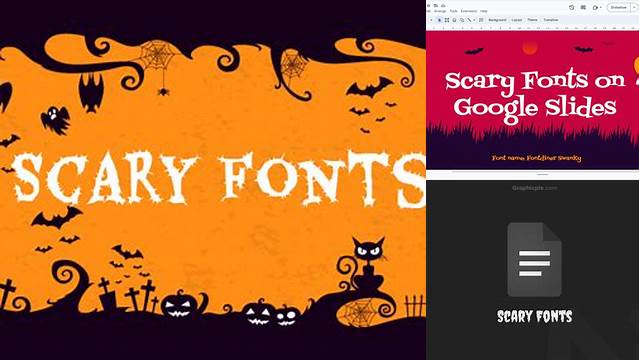
Scary Fonts For Google Slides: Spooky Season Designs
Hey guys! Getting ready to spookify your Google Slides? You've come to the right place! Finding the perfect scary font can really make your presentation or project stand out, especially for Halloween, horror themes, or anything that needs a touch of the macabre. But with so many fonts available, it can be overwhelming to choose. So, let’s dive into some of the creepiest, crawliest, and downright terrifying fonts you can use right within Google Slides. We’ll explore fonts that scream (pun intended!) “horror,” discuss where to find them, and give you tips on how to use them effectively. So buckle up, because we’re about to enter the fontastic world of fear!
1. Fonts That Scream Horror on Google Slides
When you think of a scary font, what comes to mind? Maybe it’s something jagged, dripping, or reminiscent of old horror movie posters. The good news is that Google Slides has a ton of options that fit the bill. We're talking fonts that instantly evoke feelings of dread, suspense, and maybe even a little bit of goosebumps. Choosing the right font is crucial because it sets the tone for your entire project. It’s like the soundtrack to a horror movie – it can make or break the experience. So, let's dig into some specific fonts that are perfect for your next spooky presentation. Think about the overall message you want to convey. Are you going for a classic horror vibe, a modern thriller feel, or something a bit more playful and creepy? The answer will guide you in selecting the ideal scary font.
2. Classic Horror Movie Inspired Fonts
For those who love the classics – think Dracula, Frankenstein, and The Exorcist – using fonts inspired by vintage horror movie posters can be incredibly effective. These fonts often have a hand-drawn, slightly distressed look, which adds to their eerie charm. Imagine the opening credits of a classic horror film; the fonts used often set the mood immediately. Some examples include fonts that resemble dripping blood, jagged edges like shattered glass, or even the elegant yet sinister script fonts used in older vampire movies. Using these types of fonts can instantly transport your audience to a world of suspense and terror. The key is to find a font that feels authentic and true to the era you're trying to evoke. Consider pairing a classic scary font with vintage imagery or sound effects for maximum impact. It's all about creating a cohesive and immersive experience for your audience.
3. Modern Thriller Style Fonts
If you're aiming for a more contemporary horror or thriller feel, you'll want to explore fonts that have a sleek, sharp, and sometimes even futuristic aesthetic. Think of movies like Saw or The Ring; the fonts used in these films often have a very different vibe than classic horror. They might be sans-serif fonts with a subtle twist, like a slightly off-kilter angle or a deliberately unsettling kerning (the spacing between letters). These fonts are often more about creating a sense of unease and tension than outright scares. They can be incredibly effective for psychological thrillers or anything that relies on suspense and mystery. A modern scary font can also work well for presentations on true crime or unexplained phenomena, adding a layer of seriousness and intrigue.
4. Fonts with a Dripping Blood Effect
Nothing screams (again, pun intended!) “horror” quite like a font that looks like it's dripping blood. These fonts are perfect for adding a visceral and shocking element to your designs. They're especially effective for Halloween invitations, horror movie posters, or anything that needs a dramatic and gruesome touch. When choosing a font with a dripping blood effect, consider the level of detail and readability. You want something that's clearly recognizable as blood but also legible enough to convey your message. Overdoing it can make your text look messy and difficult to read. Use these fonts sparingly and strategically, and they can be incredibly impactful. Imagine using a scary font with a dripping blood effect for a haunted house flyer – it's sure to grab attention!
5. Jagged and Distressed Fonts for a Creepy Look
Jagged and distressed fonts are another excellent option for creating a creepy and unsettling vibe. These fonts often have a rough, uneven appearance, as if they've been scratched, torn, or aged. They can evoke feelings of decay, neglect, and general unease. Think of old, abandoned buildings with peeling paint and crumbling walls – that's the kind of feeling these fonts can convey. Jagged fonts work well for anything that needs a raw and edgy feel, while distressed fonts can add a sense of history and decay. Using a jagged or distressed scary font can be a great way to add texture and visual interest to your Google Slides.
6. Spooky Script Fonts for an Eerie Touch
Script fonts might not be the first thing that comes to mind when you think of horror, but they can actually be incredibly effective for creating an eerie and unsettling touch. Think of the elegant, yet sinister, scripts used in classic vampire movies or the creepy, flowing handwriting often associated with ghosts and haunted houses. The key is to choose a script font that has a slightly off-kilter or unsettling feel. A script font with sharp angles, unusual loops, or a slightly shaky appearance can be surprisingly spooky. A well-chosen scary font in a script style can add a touch of elegance and sophistication to your horror-themed designs, while still maintaining a creepy vibe.
7. Finding Scary Fonts Directly in Google Slides
Okay, so where do you actually find these awesome scary fonts within Google Slides? It's easier than you might think! Google Slides has a built-in font library that includes a variety of options, and you can also add more fonts from Google Fonts. To access the font menu, simply click on the font dropdown in the toolbar. From there, you can scroll through the list of available fonts or use the search bar to look for specific styles. To add more fonts, click on “More fonts” at the bottom of the dropdown menu. This will open a window where you can browse and select from hundreds of fonts in the Google Fonts library. You can filter by categories like serif, sans-serif, display, and handwriting, or you can search for specific keywords like “horror” or “creepy.”
8. Exploring Google Fonts for Horror Options
Google Fonts is a treasure trove of free, high-quality fonts, and it's a fantastic resource for finding the perfect scary font for your Google Slides. The best part? It's directly integrated with Google Slides, so you can easily add any font you find to your presentation. When browsing Google Fonts, try using keywords like “horror,” “creepy,” “gothic,” “distressed,” and “jagged” to narrow down your search. You can also explore different categories like “display” and “handwriting” to find fonts that fit your specific needs. Once you've found a font you like, simply click on it and then click the “Add to Collection” button. The next time you open the font menu in Google Slides, your newly added font will be there, ready to use.
9. Websites Offering Free Scary Fonts
Beyond Google Fonts, there are tons of websites out there that offer free fonts, including some fantastic scary fonts. However, it's important to be careful when downloading fonts from the internet. Always make sure you're downloading from a reputable source and that you understand the licensing terms. Some websites offer fonts for personal use only, while others allow commercial use. Some popular websites for free fonts include DaFont, Font Squirrel, and 1001 Fonts. These sites often have extensive collections of horror-themed fonts, from dripping blood styles to jagged, distressed designs. Just be sure to read the license agreement before using any font, and always give credit to the font designer when required.
10. DaFont: A Goldmine of Creepy Typefaces
DaFont is a particularly popular website for finding free fonts, and it's an absolute goldmine for creepy typefaces. The site has a dedicated “Horror” category, which makes it easy to browse through hundreds of scary fonts. You'll find everything from fonts that look like they've been carved into stone to dripping blood styles to elegant, yet unsettling, scripts. DaFont also allows you to preview how your text will look in a specific font before you download it, which is incredibly helpful. Keep in mind that the fonts on DaFont are created by various designers, so the licensing terms may vary. Be sure to check the license agreement for each font before using it in your projects. Many fonts are free for personal use, but you may need to purchase a license for commercial use.
11. Font Squirrel: High-Quality Free Fonts for Spooky Designs
Font Squirrel is another excellent resource for finding high-quality free fonts, including a great selection of options perfect for spooky designs. What sets Font Squirrel apart is its focus on fonts that are licensed for commercial use, making it a great choice for professional projects. The site also offers a handy “Font Identifier” tool, which can help you identify a font you've seen elsewhere. This can be incredibly useful if you're trying to match a scary font used in a movie poster or other design. Font Squirrel's user-friendly interface and commitment to commercial-use fonts make it a top choice for designers and anyone looking for reliable free fonts.
12. 1001 Fonts: A Vast Collection of Horror-Themed Fonts
As the name suggests, 1001 Fonts boasts a massive collection of fonts, including a vast selection of horror-themed options. The site's search and filtering options make it easy to find the perfect scary font for your needs. You can filter by categories like “horror,” “gothic,” “distressed,” and more. 1001 Fonts also offers a convenient preview tool that allows you to see how your text will look in different fonts. Like other free font websites, it's crucial to check the license agreement for each font before using it. While many fonts are free for personal use, commercial use may require a license. With its extensive library and user-friendly features, 1001 Fonts is a valuable resource for anyone seeking creepy typefaces.
13. Using Different Font Styles to Create Tension
Choosing the right scary font is just the first step. How you use that font can also significantly impact the overall effect. One effective technique is to use different font styles to create tension and contrast. For example, you might pair a bold, jagged font for headings with a more subtle, distressed font for body text. This can help to draw the reader's eye to important information while still maintaining a creepy vibe. You can also use different font sizes and weights to create visual hierarchy and emphasis. A large, bold font can be used for shocking statements or reveals, while a smaller, lighter font can be used for more subtle details. Experimenting with different font styles is a great way to add depth and complexity to your designs.
14. Combining Scary Fonts for Maximum Impact
Don't be afraid to combine different scary fonts to create a more dynamic and visually interesting design. However, it's important to do this thoughtfully. Using too many fonts can make your design look cluttered and confusing. A good rule of thumb is to stick to two or three fonts at most. When combining fonts, try to choose fonts that complement each other. For example, you might pair a bold, display font with a more readable sans-serif font for body text. You can also use different weights and styles of the same font family to create variation without overwhelming the design. Experiment with different combinations to see what works best for your specific project.
15. Font Colors That Enhance the Spooky Effect
Color is a powerful tool for enhancing the spooky effect of your fonts. Certain colors are naturally associated with horror and suspense, such as red, black, and dark shades of purple and green. Using these colors for your scary font can instantly amplify its impact. Red is often associated with blood and danger, making it a great choice for shocking headlines or dramatic statements. Black conveys a sense of darkness, mystery, and fear, and it works well for creating a sense of unease. Dark purples and greens can evoke feelings of decay, sickness, and the supernatural. Consider the overall mood you're trying to create and choose colors that support that mood. You can also use contrasting colors to create visual interest and emphasis.
16. Adding Shadows and Outlines for a 3D Effect
Adding shadows and outlines to your scary font can create a 3D effect that makes your text pop off the page. This can be particularly effective for headings and titles. In Google Slides, you can add shadows and outlines to your text by selecting the text box and then clicking on the “Format options” button in the toolbar. From there, you can adjust the shadow's color, distance, blur, and angle. You can also add an outline to your text and customize its color, thickness, and style. Experiment with different settings to achieve the desired effect. A subtle shadow can add depth and dimension, while a bold outline can make your text stand out even more. Just be careful not to overdo it, as too much shadowing or outlining can make your text look cluttered and difficult to read.
17. Text Effects to Make Your Fonts Even Scarier
Google Slides offers a variety of text effects that can help you make your scary fonts even more terrifying. These effects include things like reflections, glows, and bevels. Reflections can create a sense of eeriness and otherworldliness, while glows can add a subtle, ethereal touch. Bevels can give your text a three-dimensional appearance, making it look like it's popping off the page. To access these text effects, select your text box and then click on “Format options” in the toolbar. From there, you can explore the different effects and adjust their settings to your liking. Experiment with different combinations to see what works best for your specific font and design. Just remember to use these effects sparingly, as too many effects can make your text look cluttered and distracting.
18. Animation Techniques to Emphasize Horror Fonts
Animation can be a powerful tool for emphasizing your scary fonts and creating a truly chilling presentation. Google Slides offers a variety of animation options that you can use to reveal your text in a dramatic and suspenseful way. For example, you might use a “fade in” animation to slowly reveal a creepy headline, or a “fly in” animation to make your text swoop onto the screen. You can also use animations to highlight specific words or phrases, drawing the viewer's attention to key details. To add animation to your text, select the text box and then click on the “Animate” button in the toolbar. From there, you can choose from a variety of animation options and customize their settings. Experiment with different animations to find the ones that best suit your overall design and message. Just be careful not to overdo it with the animations, as too many animations can be distracting and take away from the impact of your font.
19. Background Images That Complement Scary Fonts
The background image you choose can significantly enhance the overall spooky effect of your scary font. A dark, moody background can create a sense of unease and suspense, while a textured background can add visual interest and depth. Consider using images of haunted houses, graveyards, dark forests, or other creepy scenes to complement your font. You can find free stock photos on websites like Unsplash, Pexels, and Pixabay. When choosing a background image, make sure it doesn't clash with your font or make your text difficult to read. A good rule of thumb is to use a background image that is slightly blurred or dimmed, so that your text stands out more prominently. You can also use a color overlay to darken or tint your background image, creating a more cohesive look.
20. Sound Effects for a Truly Frightening Presentation
Sound effects can add a whole new dimension to your spooky presentation and amplify the impact of your scary font. Imagine the sound of creaking doors, ghostly whispers, or a sudden scream accompanying your creepy text – it's sure to send chills down your audience's spines! Google Slides allows you to easily insert audio files into your presentations. You can find free sound effects on websites like Freesound and Zapsplat. When choosing sound effects, make sure they are appropriate for your audience and your overall message. Avoid sounds that are too loud or jarring, as these can be distracting and unpleasant. Instead, opt for subtle sound effects that enhance the atmosphere and create a sense of suspense. You can also use sound effects to emphasize specific words or phrases, drawing the viewer's attention to key details.
21. Examples of Effective Scary Font Combinations
Choosing the right font combination can make or break your spooky design. Here are a few examples of effective scary font pairings that you can use as inspiration:
- Pairing 1: A bold, jagged display font like “Nosferatu” for headings with a more readable sans-serif font like “Roboto” for body text.
- Pairing 2: A dripping blood font like “Bloodlust” for titles with a distressed script font like “Ghoulish” for subheadings.
- Pairing 3: A classic gothic font like “Blackwood Castle” for headings with a modern, slightly off-kilter font like “Bebas Neue” for body text.
Experiment with different combinations to find what works best for your specific project and message. The key is to choose fonts that complement each other and create a cohesive visual experience.
22. Common Mistakes to Avoid When Using Scary Fonts
While scary fonts can be incredibly effective for creating a spooky atmosphere, it's important to use them thoughtfully and avoid common mistakes. One of the biggest mistakes is overusing scary fonts. Using too many different scary fonts, or using a scary font for large blocks of text, can make your design look cluttered and difficult to read. Another common mistake is choosing a font that is too extreme or illegible. While a dripping blood font might look cool for a title, it's probably not the best choice for body text. It's also important to consider your audience when choosing a scary font. A font that is too graphic or violent might be inappropriate for some viewers. Always err on the side of caution and choose fonts that are both effective and appropriate for your audience.
23. How to Ensure Readability with Horror Fonts
Even the scariest font needs to be readable! You don’t want your message lost in a sea of creepy squiggles. When using a scary font, ensure readability by:
- Choosing a legible size: Don't make the font too small, especially for body text.
- Using sufficient contrast: Make sure your font color stands out against the background.
- Avoiding overly complex fonts for large blocks of text: Save the super-creepy, hard-to-read fonts for titles and headings.
- Kerning and tracking: Adjust the spacing between letters and words if needed to improve readability.
24. The Psychology Behind Scary Fonts and Their Impact
Ever wondered why certain fonts give you the chills? It’s all about psychology! Scary fonts often tap into our primal fears and associations. Jagged fonts can evoke feelings of danger and pain, while dripping fonts might trigger associations with blood and injury. Gothic fonts can conjure images of old castles, graveyards, and the supernatural. By understanding the psychology behind these fonts, you can use them more effectively to create the desired emotional response in your audience. Think about the message you want to convey and choose fonts that support that message on a psychological level.
25. Scary Fonts for Halloween Presentations
Halloween is the perfect time to unleash your inner font fanatic and go all-out with scary fonts. Whether you're creating a presentation for a Halloween party, a haunted house event, or just a fun classroom activity, the right font can make all the difference. Consider using fonts that evoke classic Halloween imagery, such as pumpkins, ghosts, and bats. Dripping blood fonts, jagged fonts, and distressed fonts are also great choices for Halloween-themed designs. Don't be afraid to get creative and experiment with different font combinations and effects to create a truly spooky presentation.
26. Using Scary Fonts in Educational Settings (Appropriately)
You might be thinking, “Scary fonts in school?!” But hear me out! Used appropriately, they can be a fun way to engage students. Think about a history lesson on medieval times using a gothic font, or a spooky story writing prompt with a dripping blood font. The key is context. Make sure the font fits the subject matter and isn’t too intense for younger students. Always prioritize readability and use scary fonts sparingly. They should enhance the learning experience, not distract from it.
27. Scary Fonts for Gaming and Streaming Graphics
Gamers and streamers, listen up! A killer scary font can seriously level up your graphics. Think about your channel’s theme – horror games, spooky streams, or just a general edgy vibe. Choose fonts that match that aesthetic. Jagged fonts, futuristic fonts with a dark twist, or even grungy, distressed fonts can work wonders. Use them for your logo, stream overlays, thumbnails, and social media graphics to create a consistent and captivating brand. Just make sure your font is readable, even in small sizes.
28. Monotype Corsiva: A Surprisingly Spooky Script
Monotype Corsiva? A classic script font? Believe it or not, this font can actually have a slightly unsettling vibe, especially when used in the right context. Its flowing, elegant strokes can take on a sinister feel, like a ghost writing a message. Try using Monotype Corsiva in a dark color, with a subtle shadow, against a creepy background. You might be surprised at how this seemingly innocent font can transform into a scary font contender. It’s all about how you use it!
29. Testing Your Scary Font Choices Before Finalizing
Before you finalize your presentation, it’s crucial to test your scary font choices. What looks great on your screen might not translate as well on a projector or in print. Test your fonts in different sizes and formats to ensure they are readable and have the desired impact. Ask for feedback from others. Do they find the fonts scary or just plain hard to read? Testing your fonts beforehand can save you from a presentation disaster and ensure your message gets across loud and clear.
30. The Future of Scary Fonts: Emerging Trends
The world of fonts is constantly evolving, and there are always new and exciting trends emerging, even in the realm of scary fonts. We’re seeing a rise in custom-designed fonts that are specifically created for horror themes. Think fonts with animated effects, fonts that react to mouse movements, or fonts that incorporate 3D elements. There’s also a growing interest in combining traditional scary font styles with modern design aesthetics. Keep an eye on these trends to stay ahead of the curve and create truly cutting-edge spooky designs. The future of scary fonts is looking terrifyingly exciting!